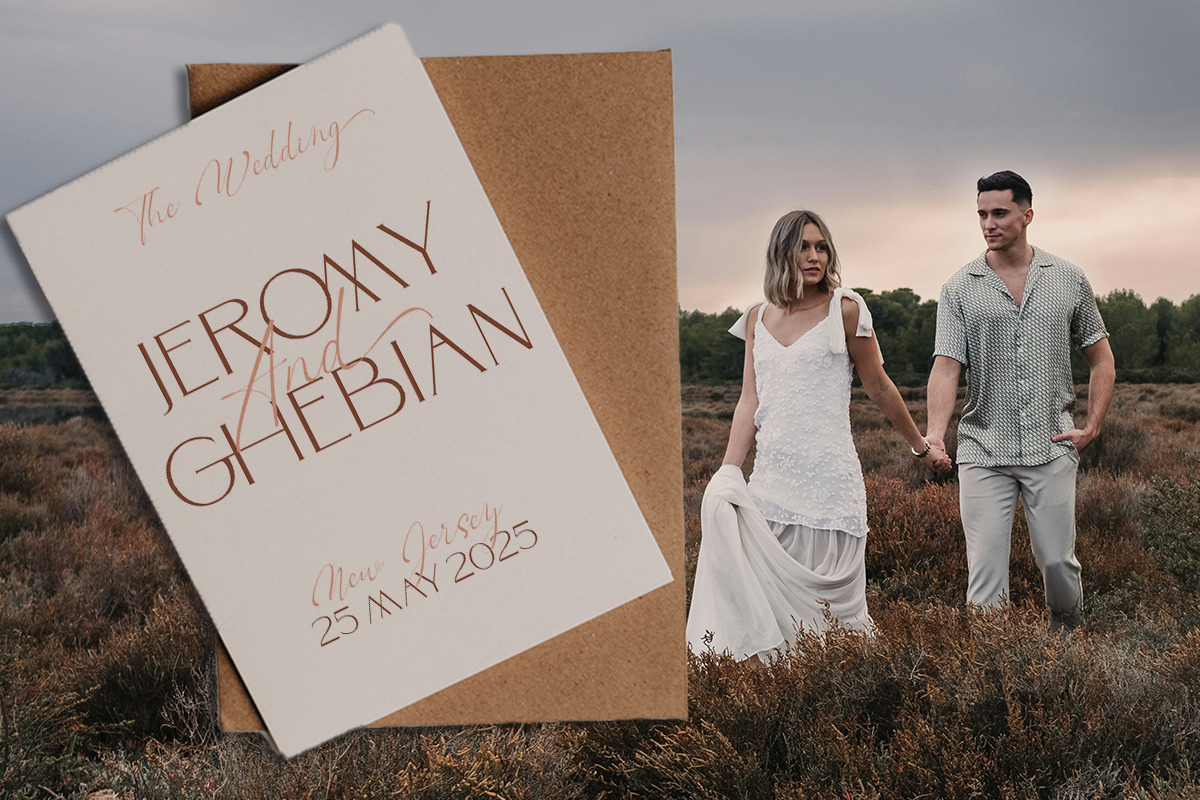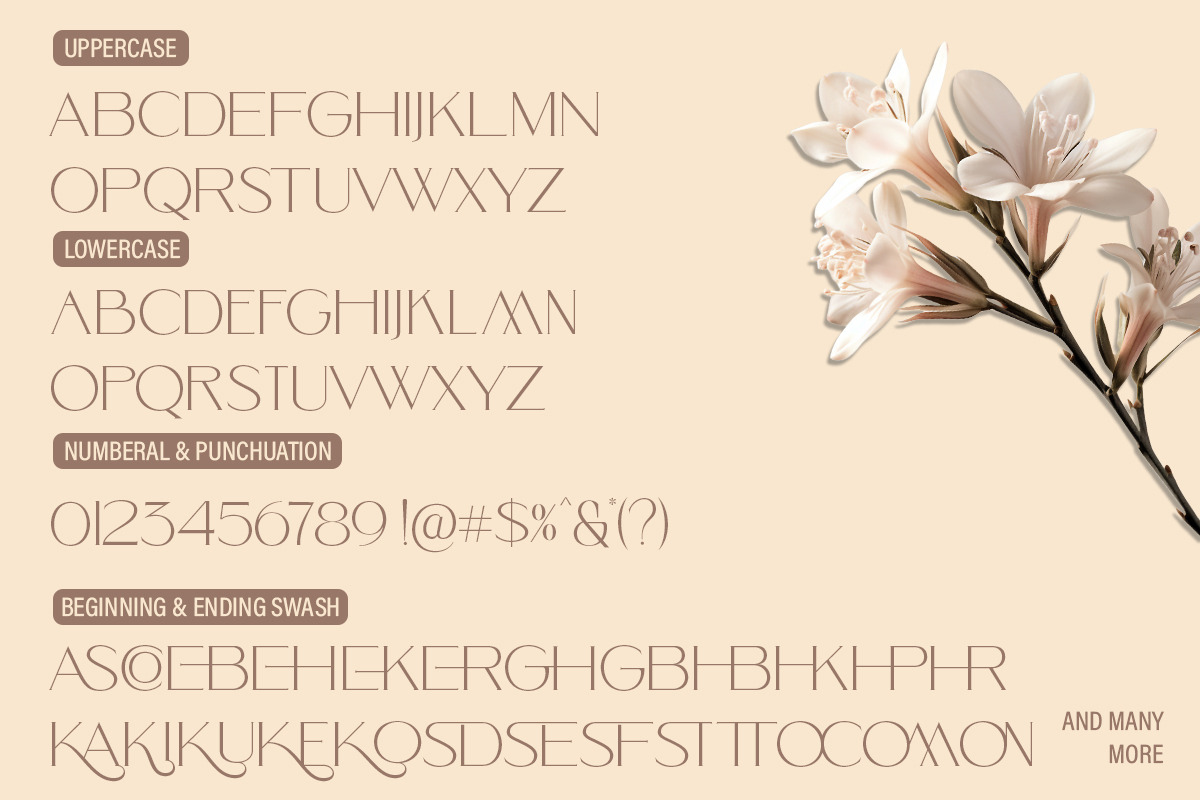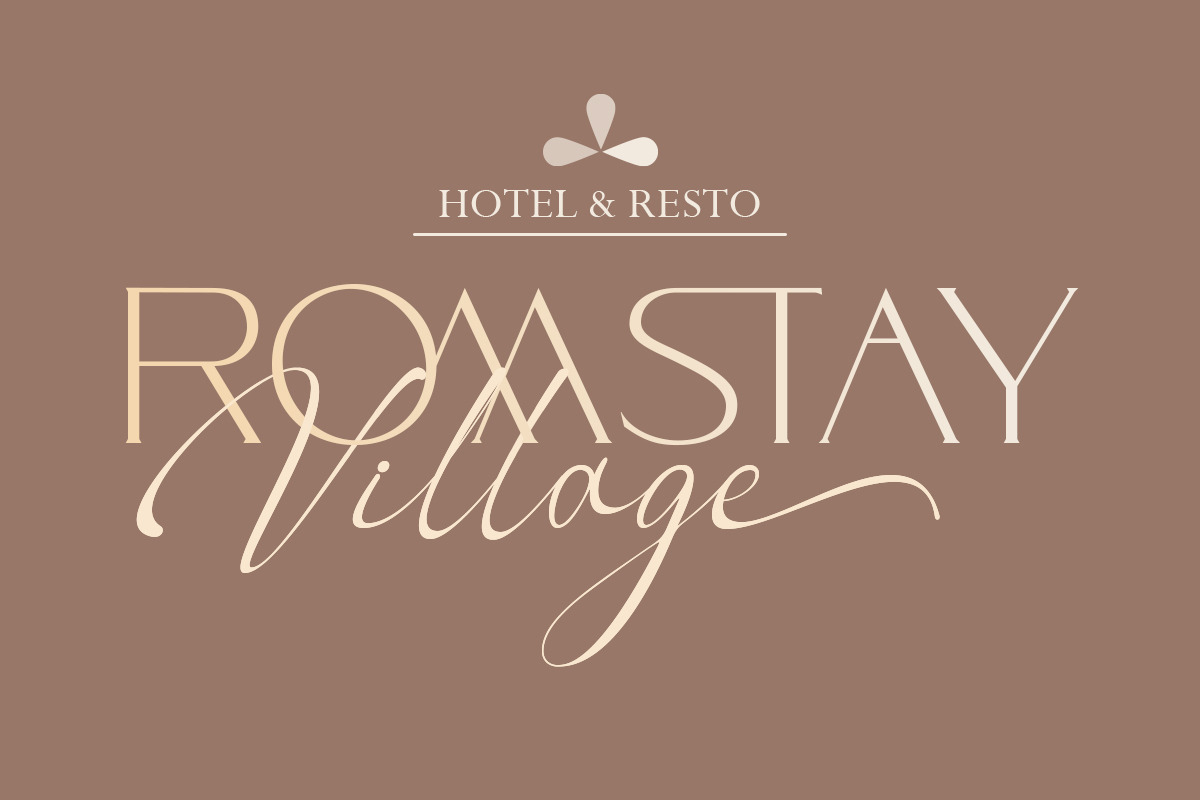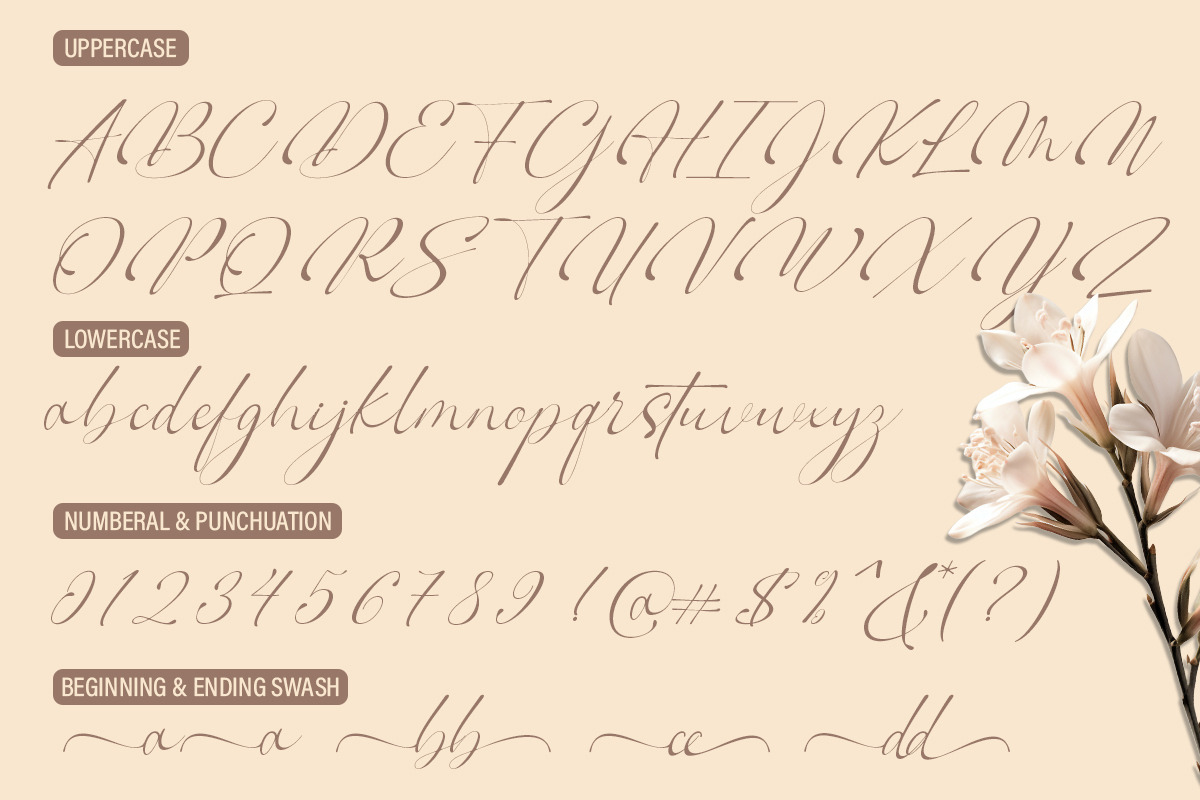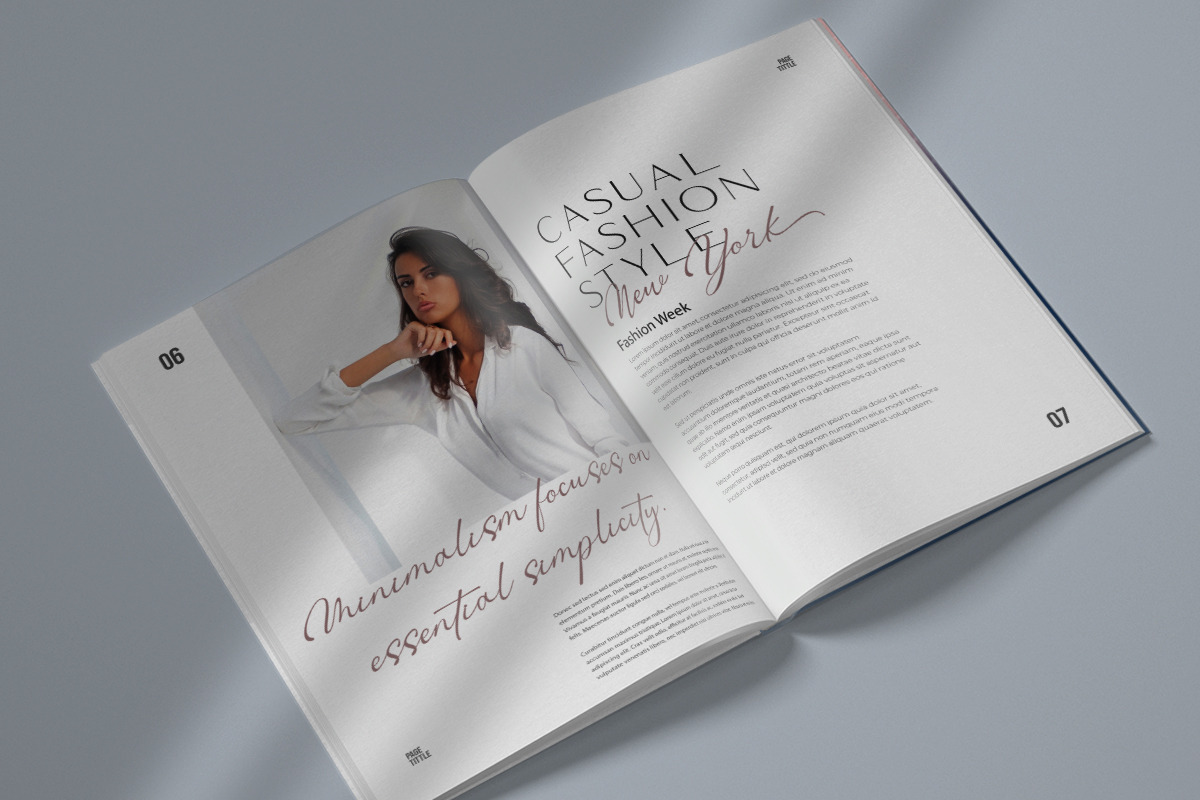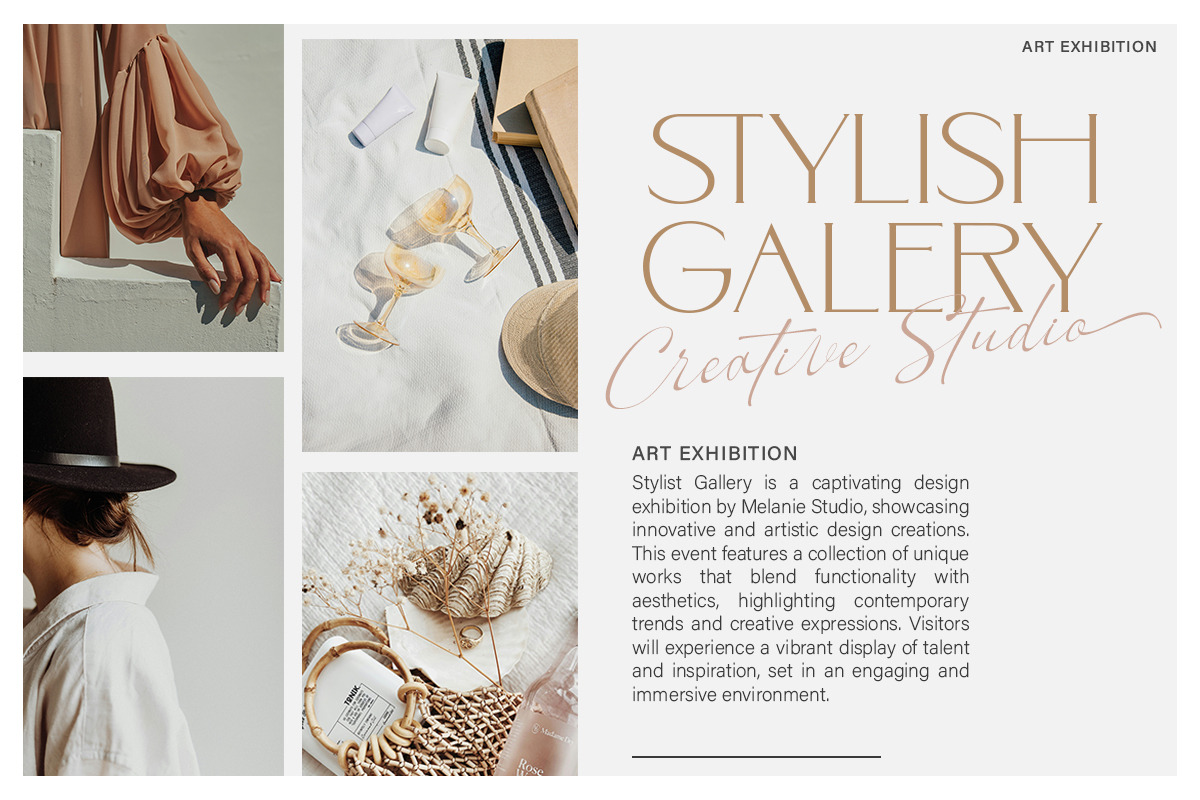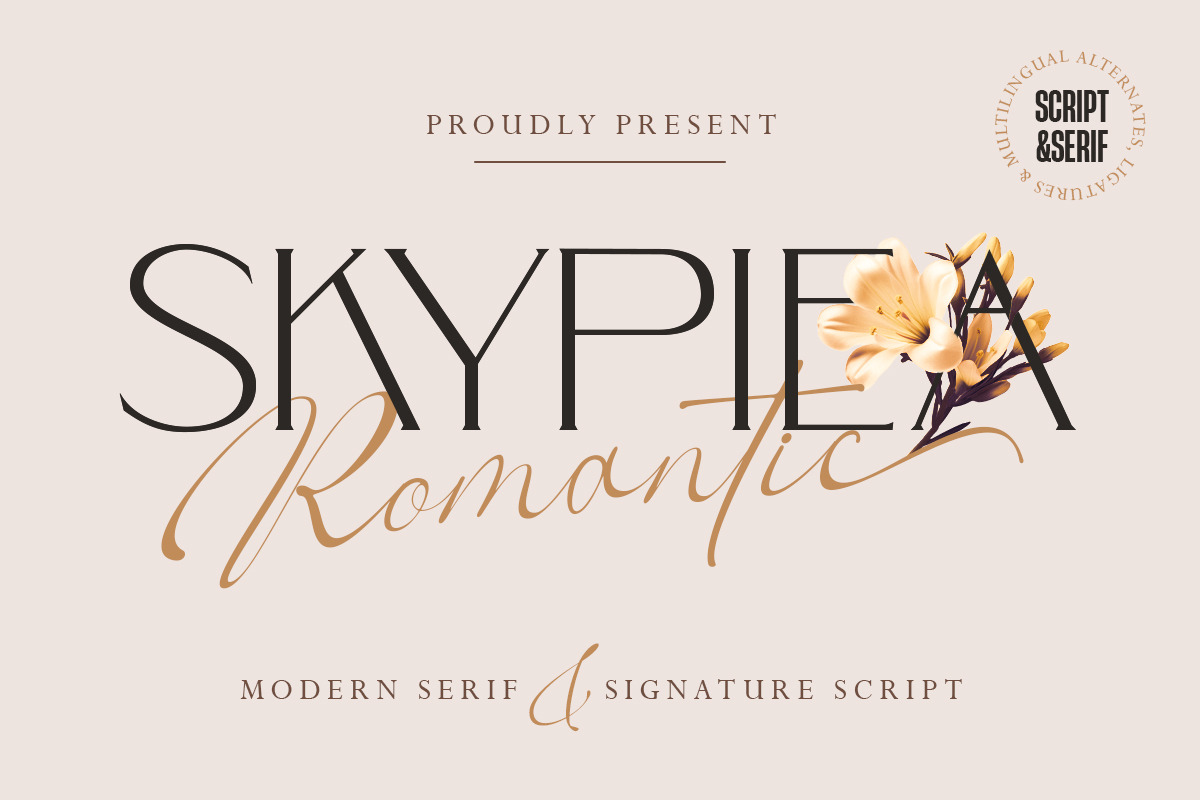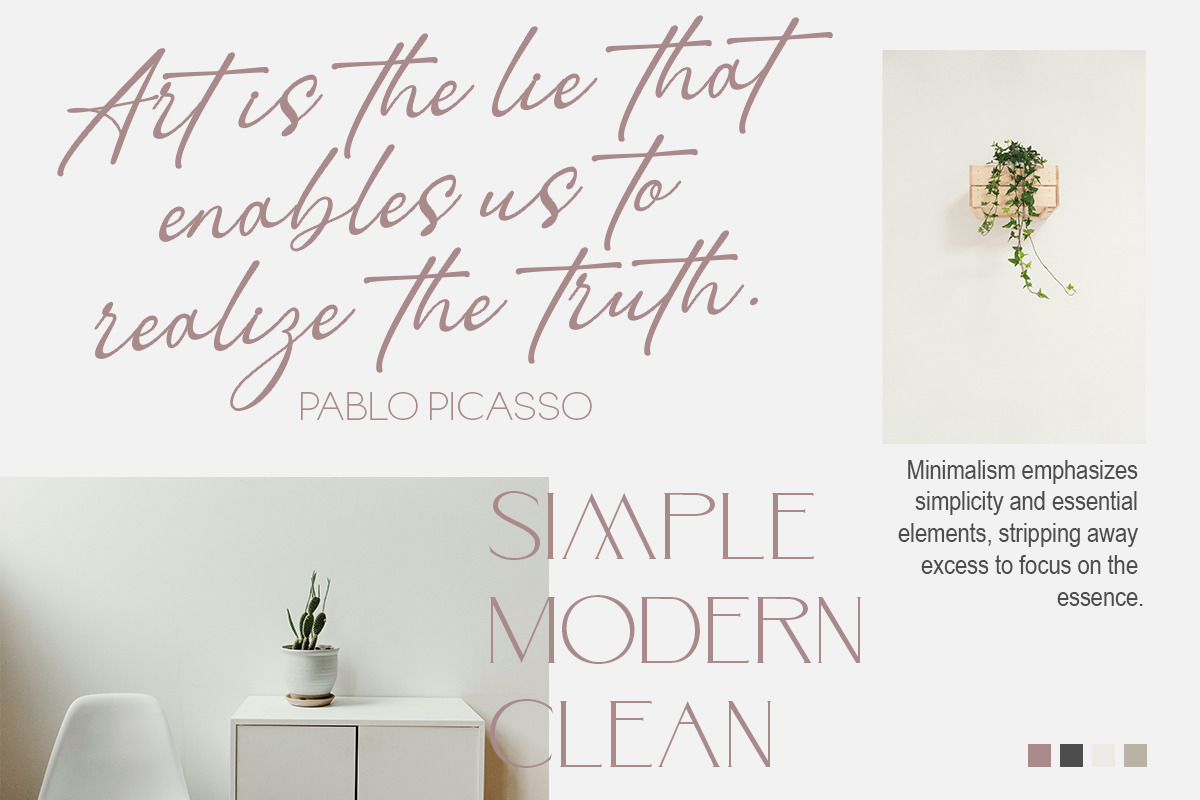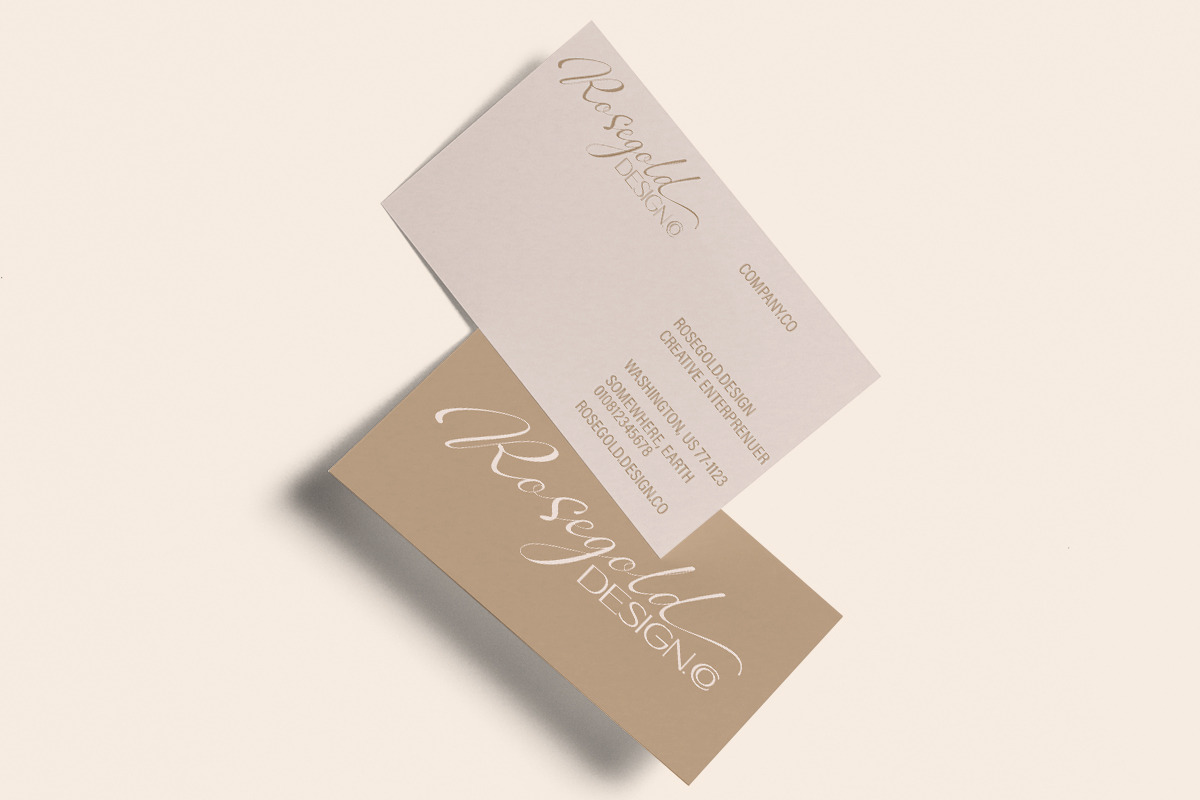
Skypiea Romantic Signature font Duo
Skypiea Romantic Signature font Duo. which comes with a combination of modern and elegant fonts, namely sans and signature style. You can combine it to make beautiful typography. This hand Serif style makes it perfect for use in all your design projects be it logos, labels, packaging designs, blog titles, posters, wedding designs, social media posts, Instagram designs, card invitations, art quotes, home decor, book / cover titles , etc.
Already matched up and ready to be used together for your next design!
Skypiea Romantic Signature font Duo Regular / Serif • Thin and realistic signature fonts containing automatic ligatures, lowercase letters, uppercase letters, all punctuation & numbers.Language Support
• Skypiea Romantic Signature font Duo. which comes with a combination of modern and elegant fonts, namely sans and signature style. You can combine it to make beautiful typography. supports the following languages; English, French, Italian, Spanish, Portuguese, German, Swedish, Norwegian, Danish, Dutch, Finnish, Indonesian, Malay, Hungarian, Polish, Croatian, Turkish, Romanian, Czech, Latvian, Lithuanian, Slovak, Slovenian.